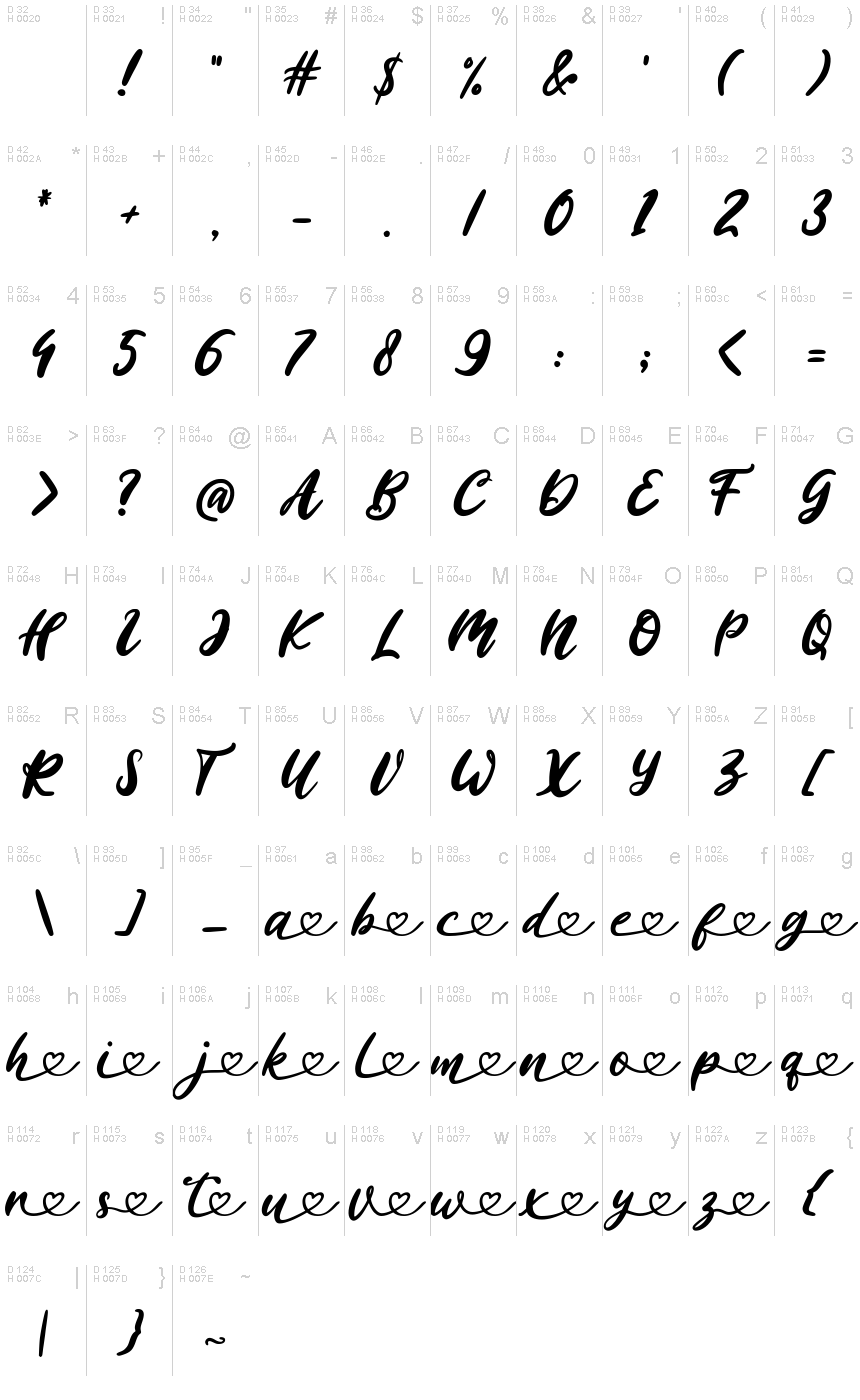
Ali Ana Connecting Heart
Ali Ana Connecting Heart is a beautifully crafted font designed by Ikrar Bey Khubaib that encapsulates the essence of handwritten charm with a Valentine's twist. Each stroke brims with personality, offering a blend of intimacy and playfulness that speaks directly to the heart. This font's fluid connections and elegant heart embellishments make it an ideal choice for romantic projects, wedding invitations, greeting cards, and any design work where a touch of love is desired.
The aesthetic appeal of Ali Ana Connecting Heart lies in its balance between whimsy and elegance. Its handwritten style conveys warmth and authenticity, inviting designers to add a personal touch to their creations that digital fonts often lack. The connecting hearts woven into the letterforms serve as delightful accents that transform ordinary text into an expression of affection.
Whether used for branding, product packaging, or social media graphics, this font radiates versatility while maintaining its distinctive character. It's not just about what you say; it's about how you say it—and Ali Ana Connecting Heart says it with love.